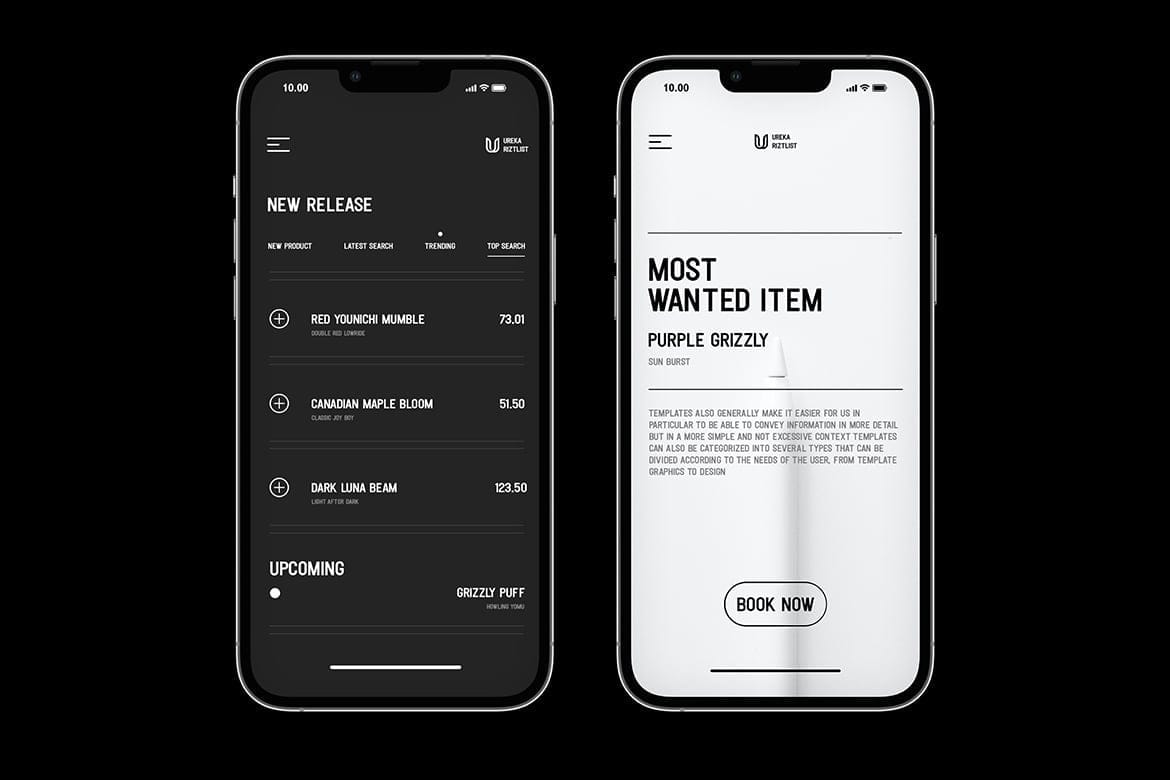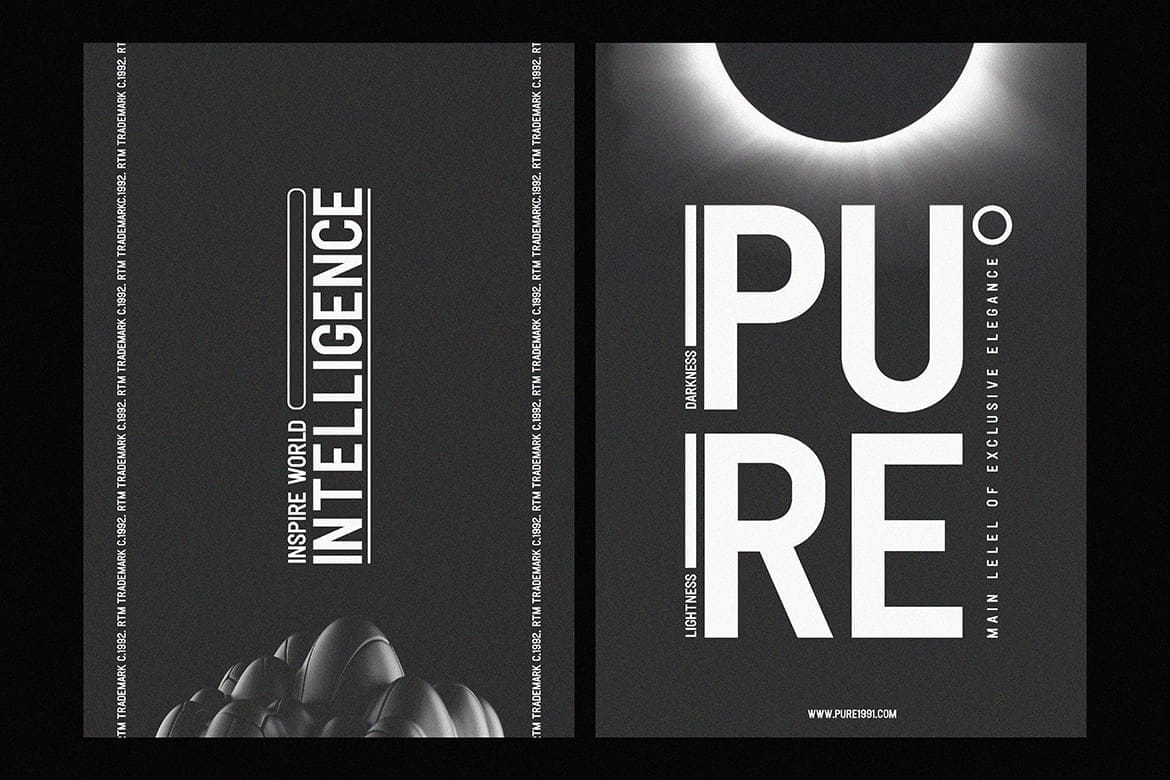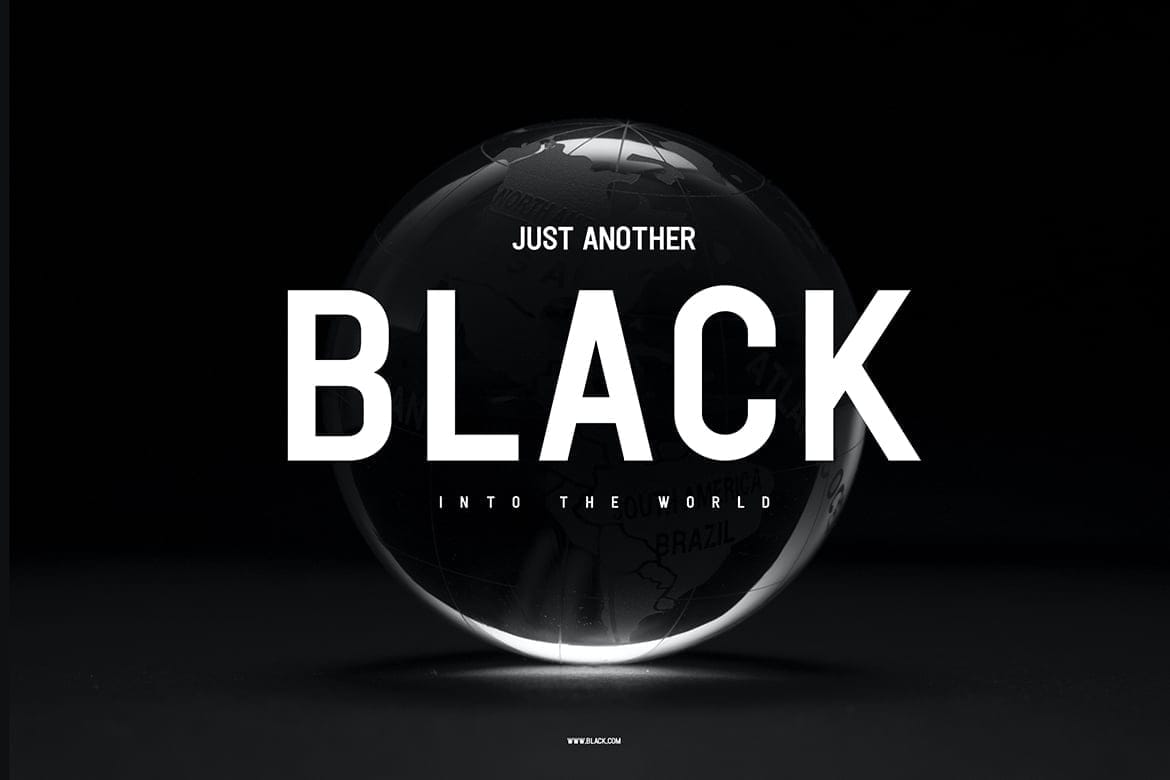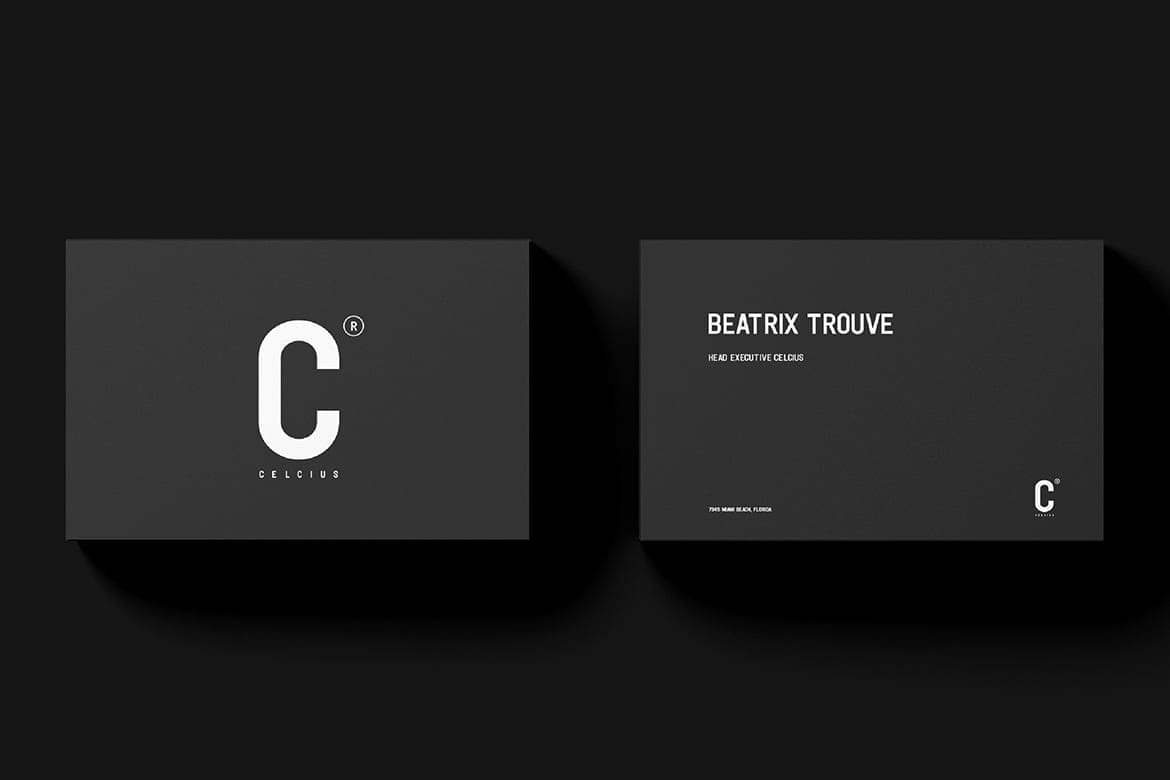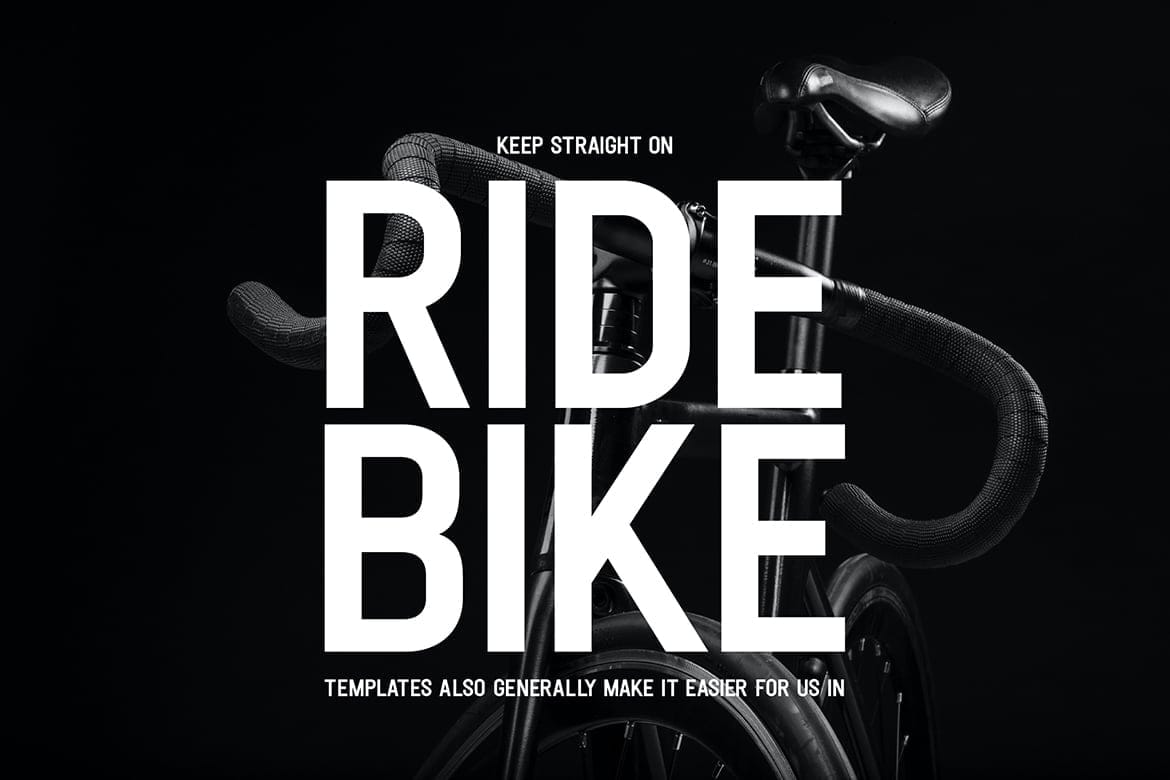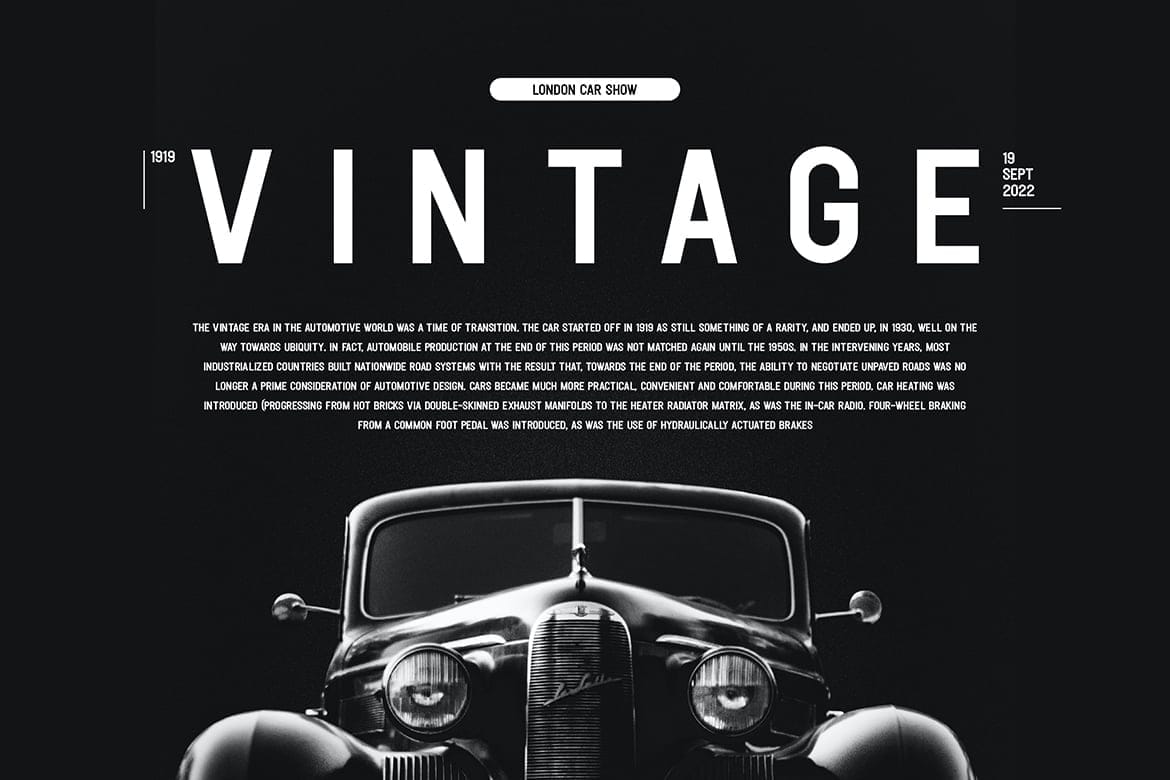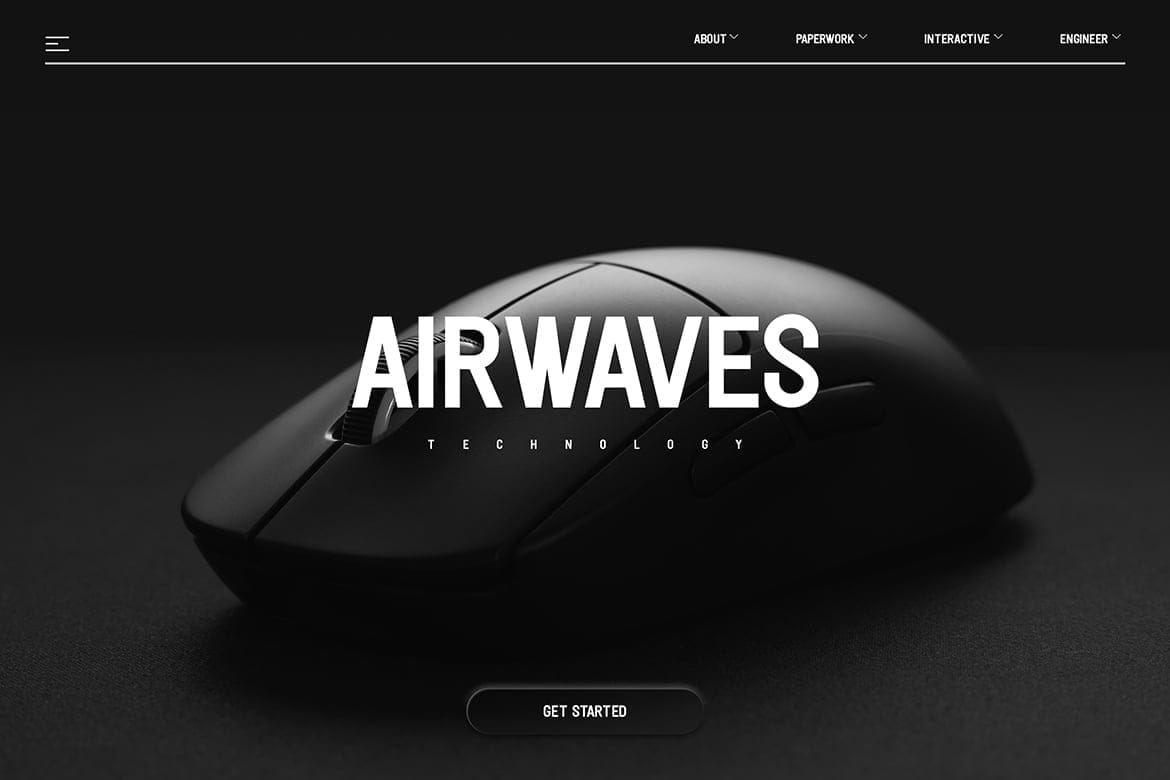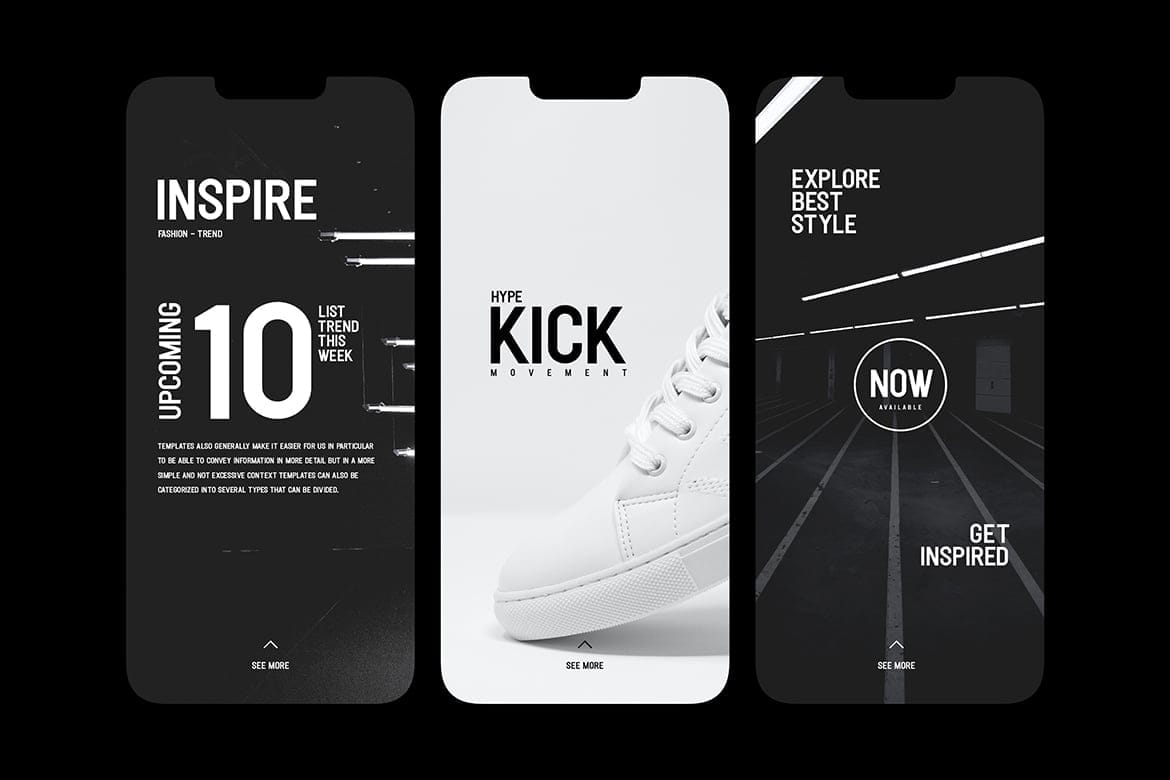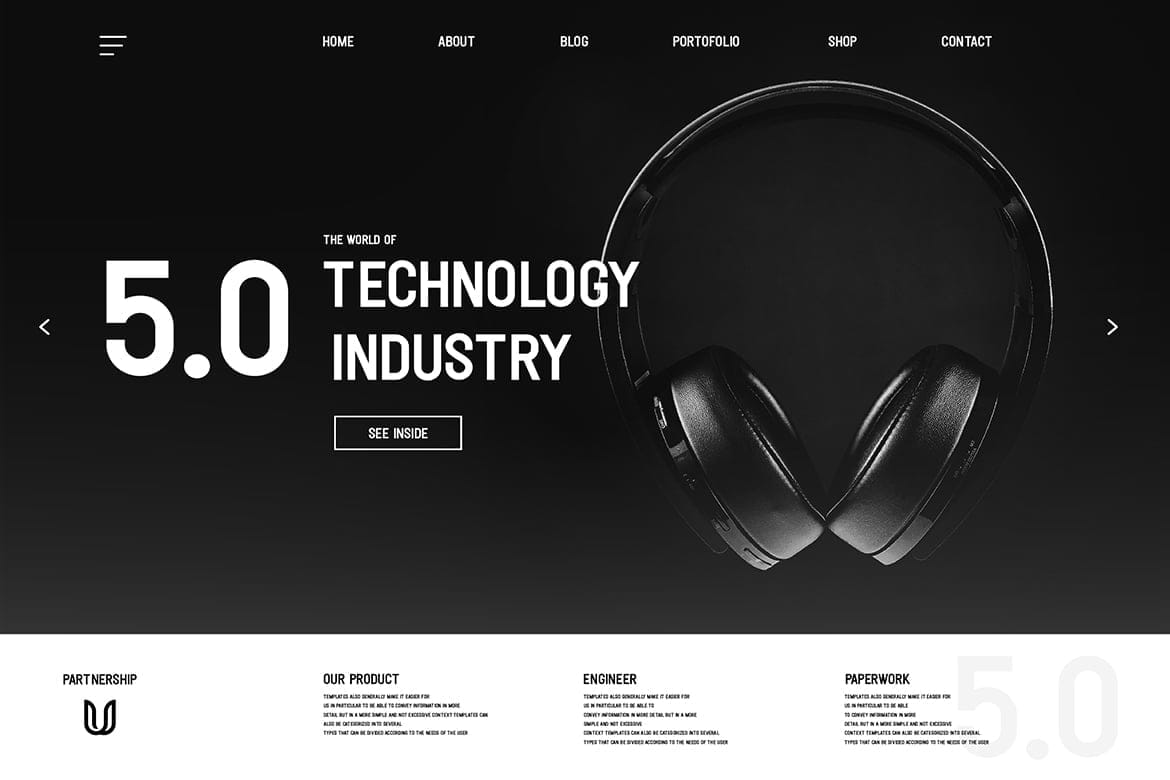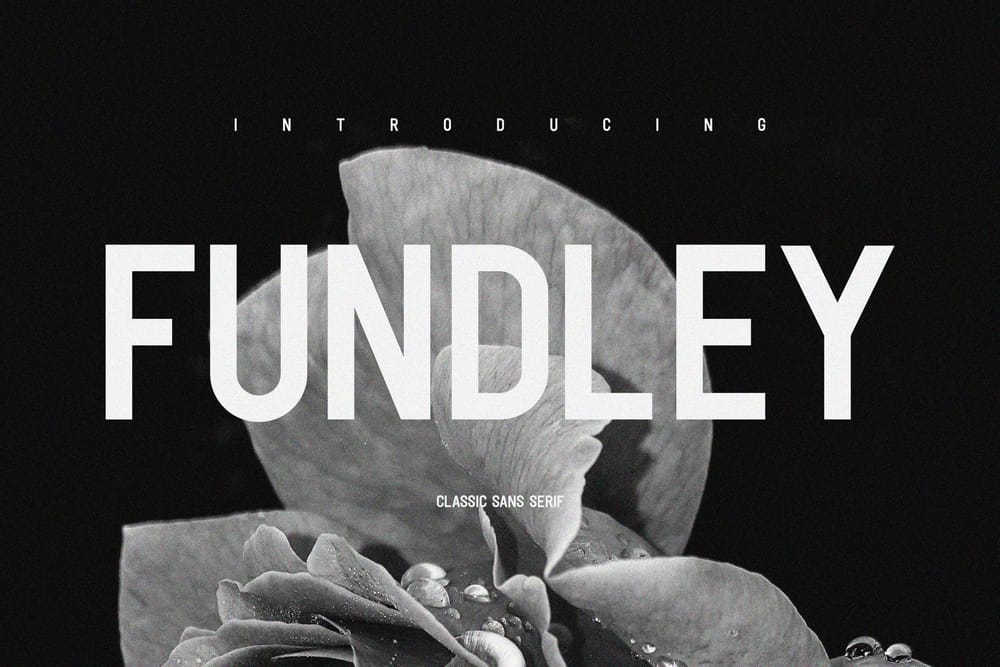
Fundley Font
Fundley font is a Bolder font type for creating powerful messaging and engaging with your audience. It's not just about making a bold statement but using the font to your advantage in a way that is visually interesting and helps your message stay front and centre.
This font suit for personal & commercial project such a poster, letter, headline, web blog, social media post, stories, banner, Packaging, T-shirt design, pillow, wedding invitation, or even for logo design. Use them in your designs to create a unique identity.